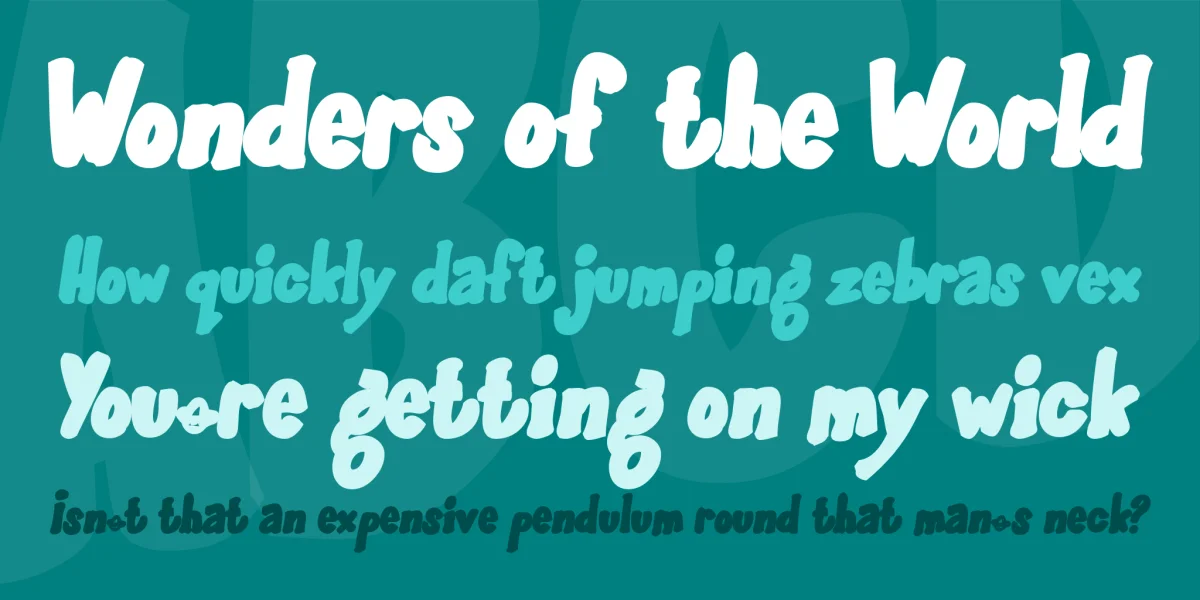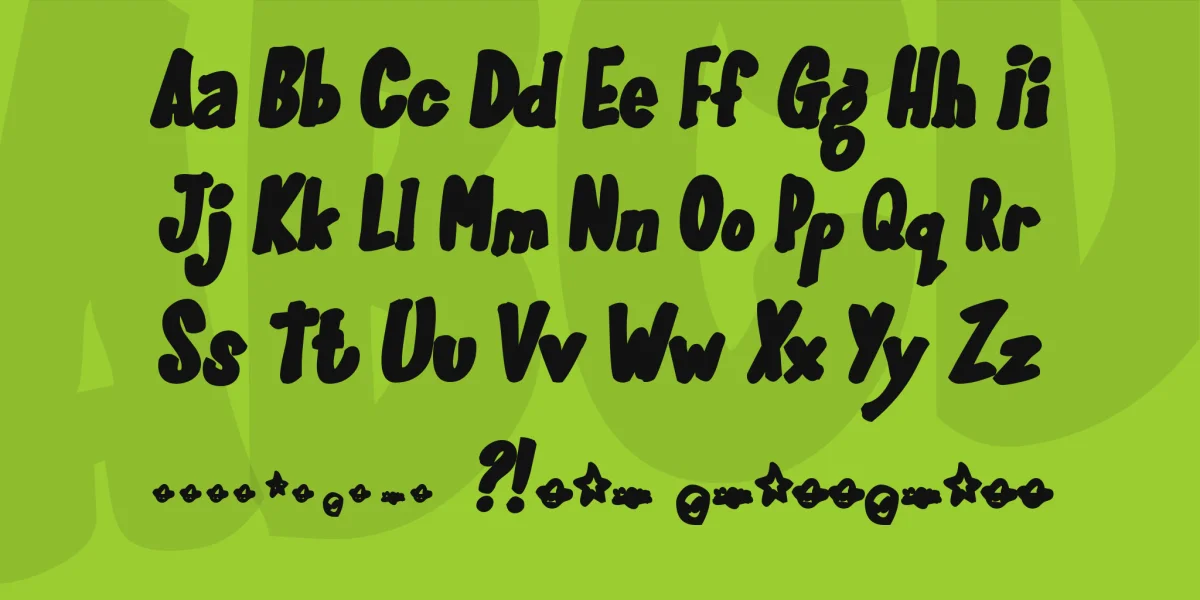
I decided that Joinks! wasn't as hip as it should be. So what do I do? Fatten it up and give it a skew. Oh, yeah, baby. This font is super phat now!! It's dope naked foul!